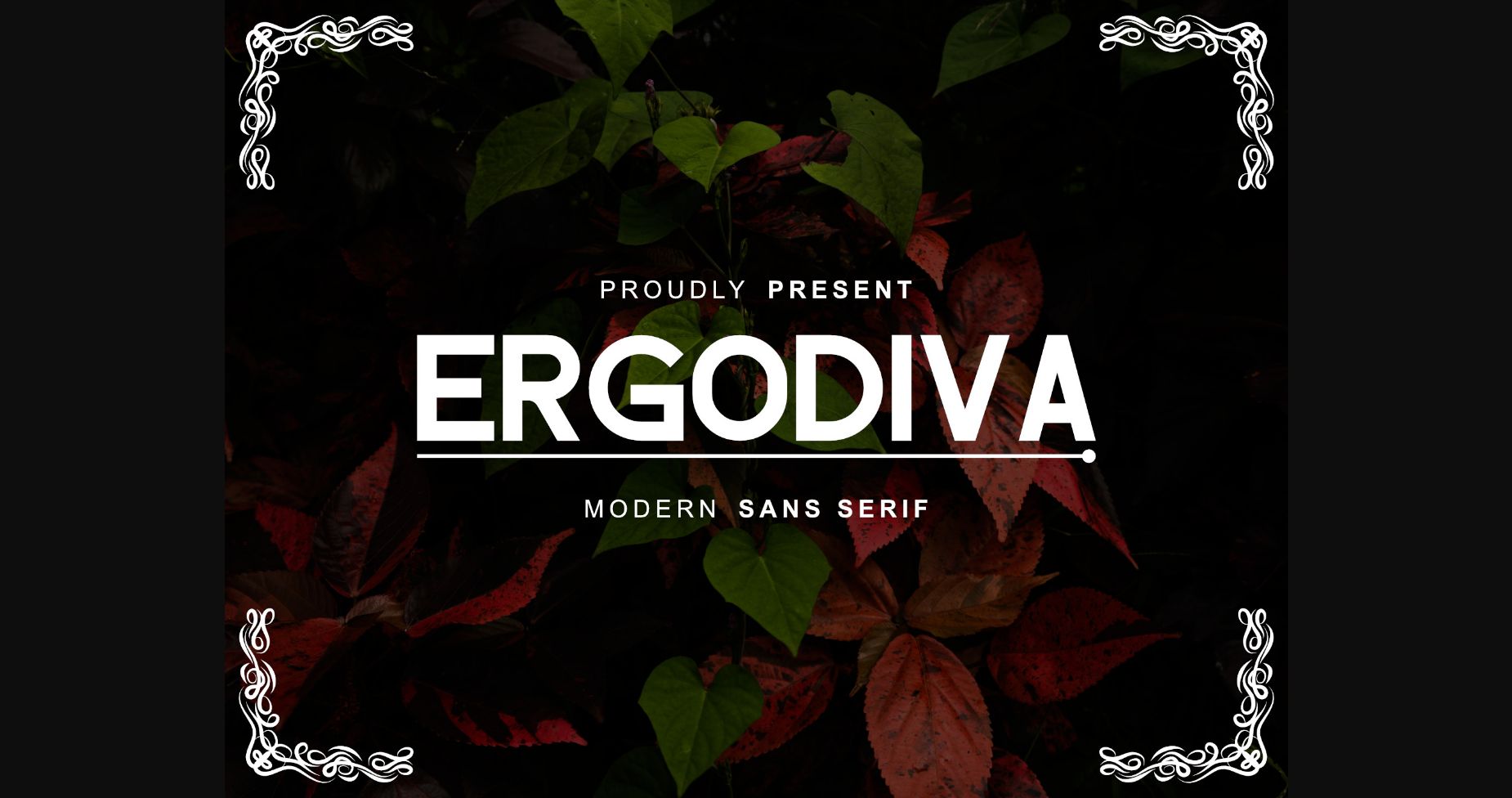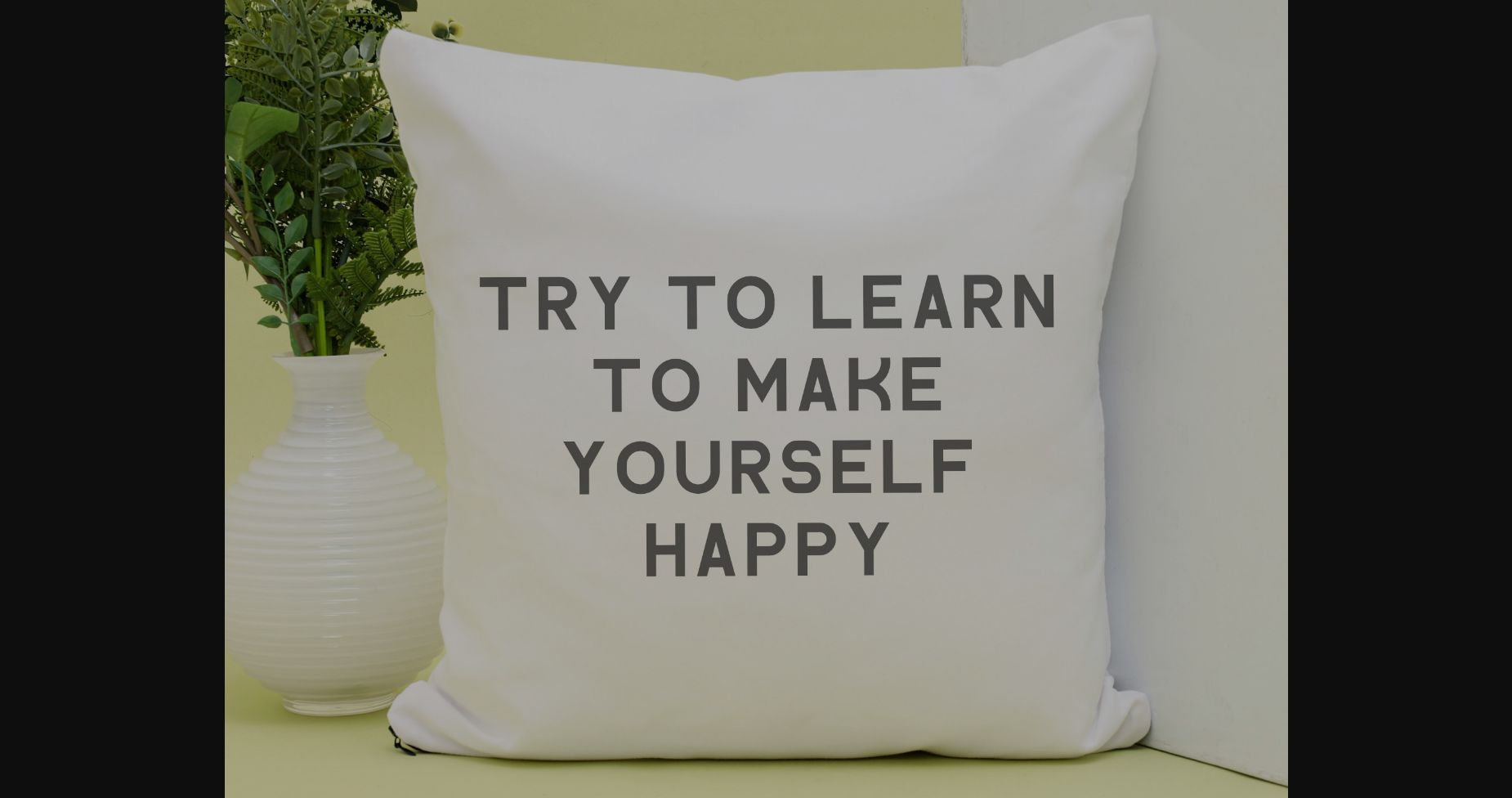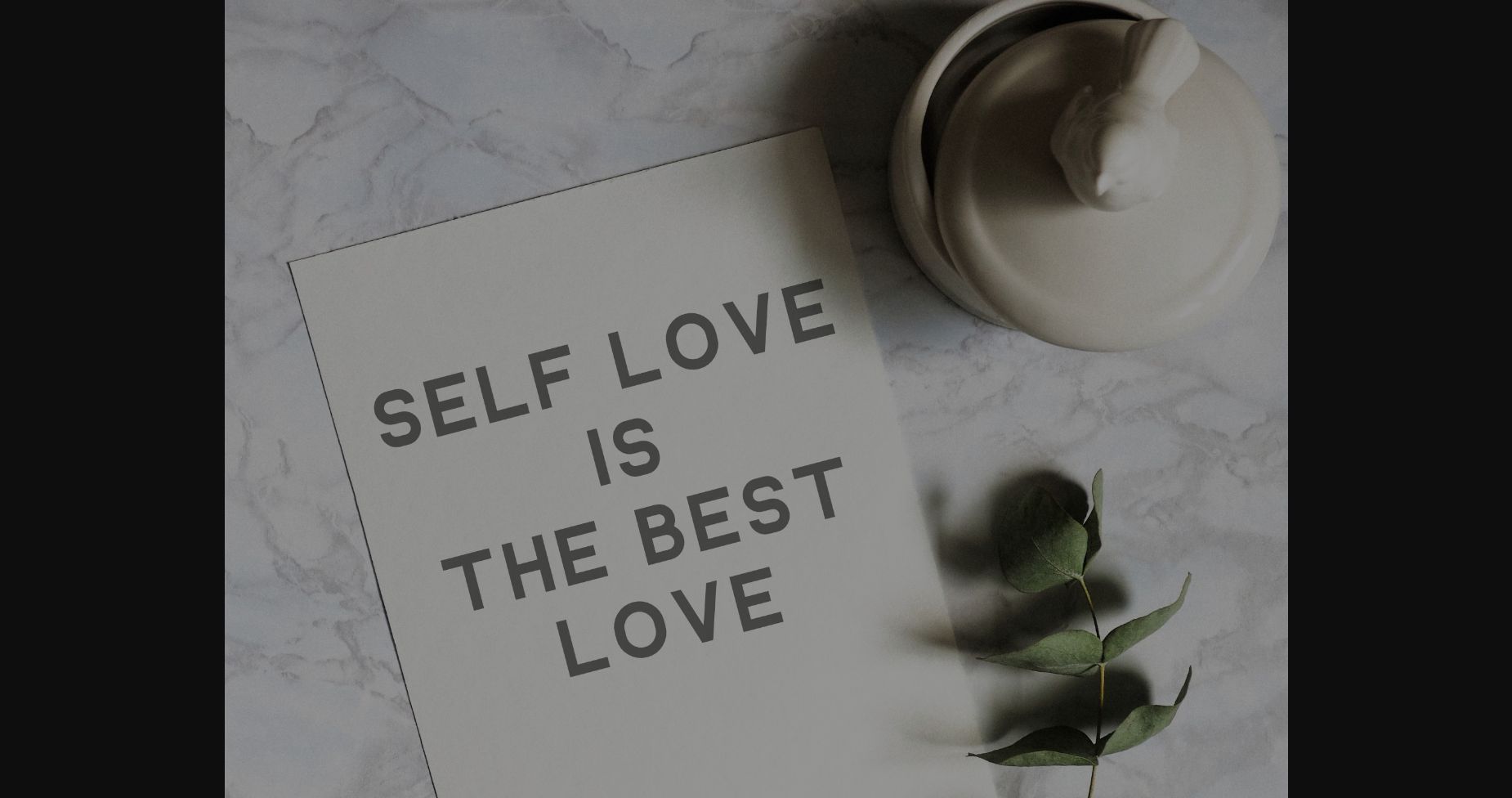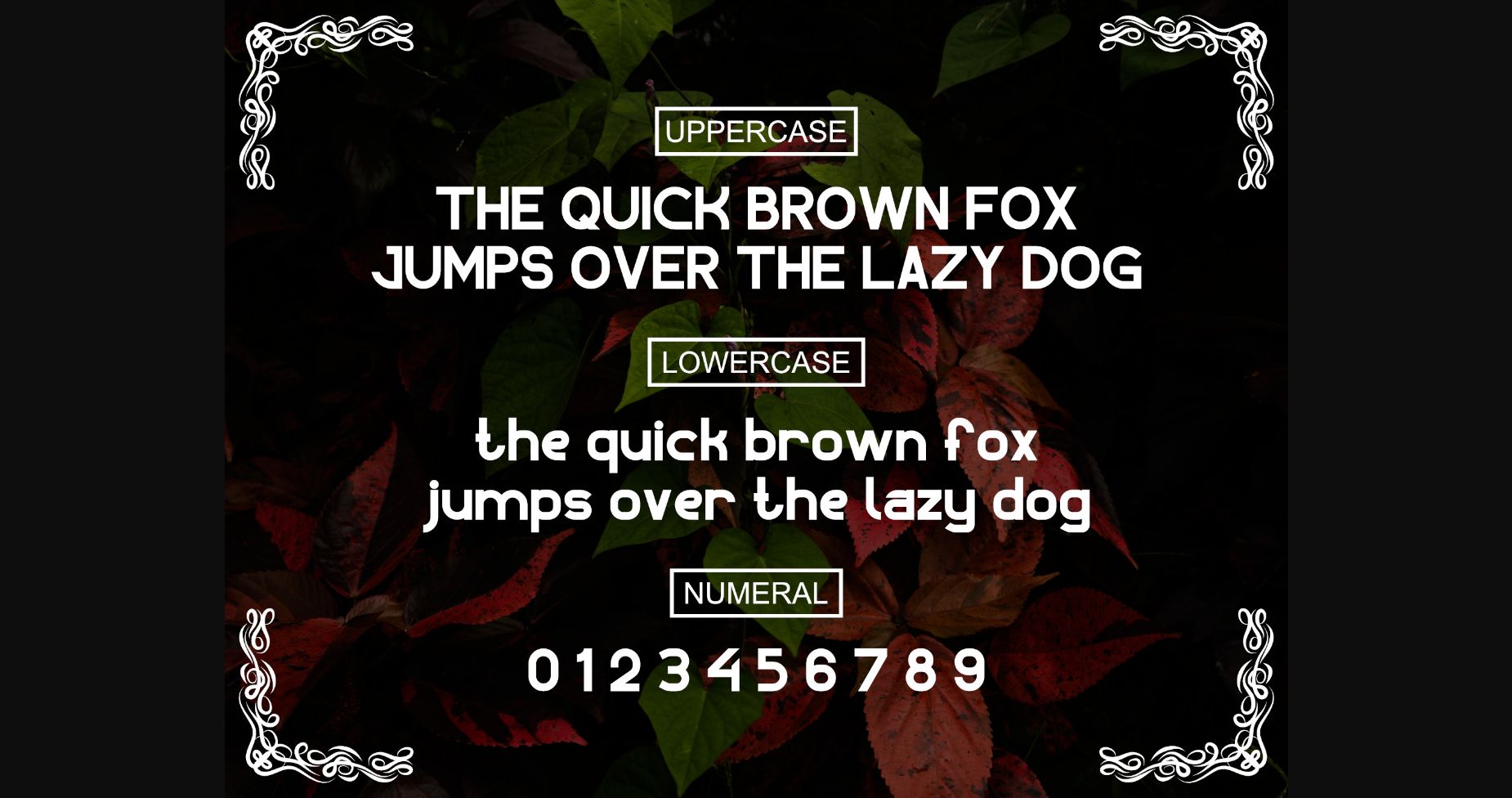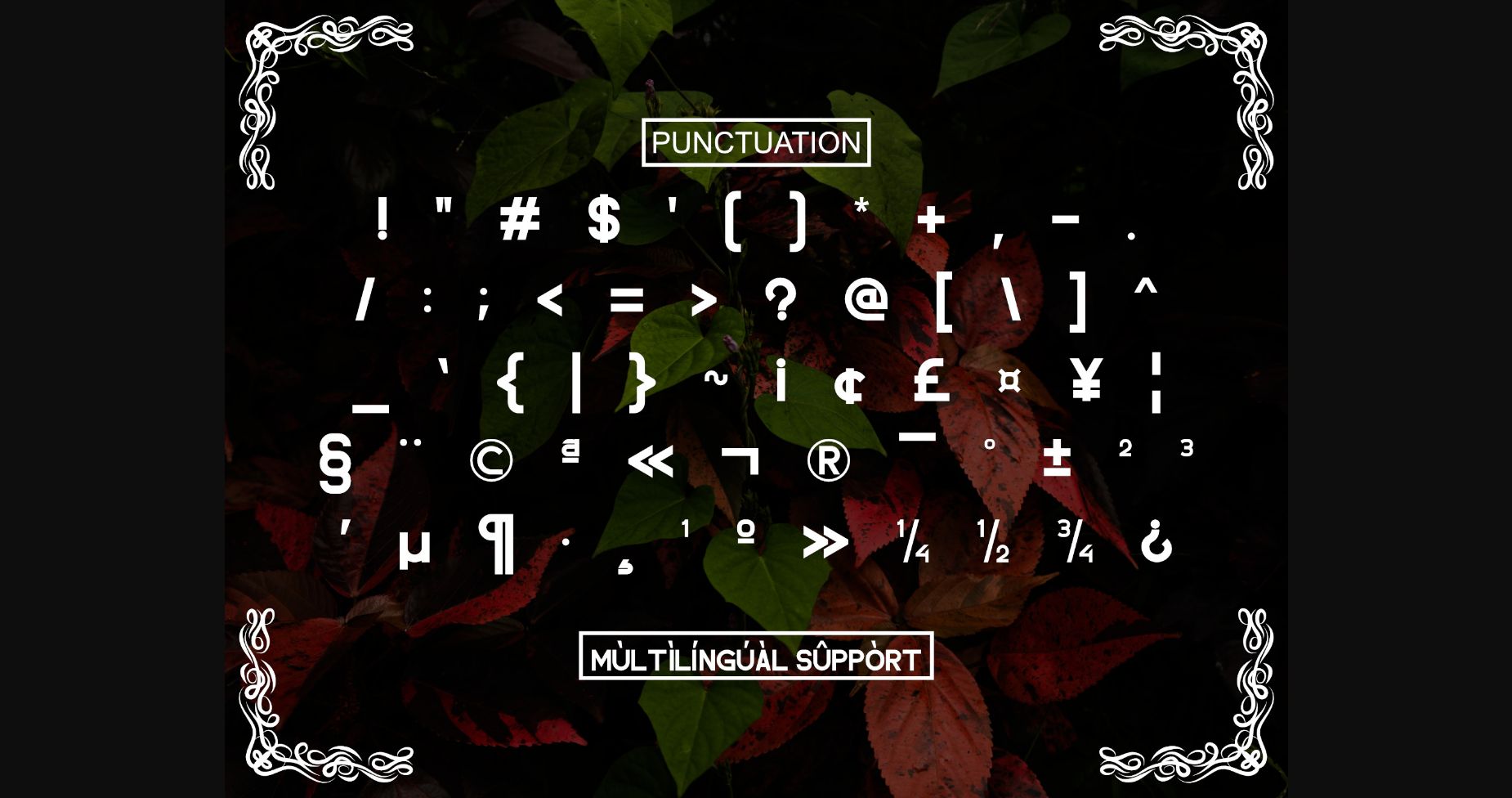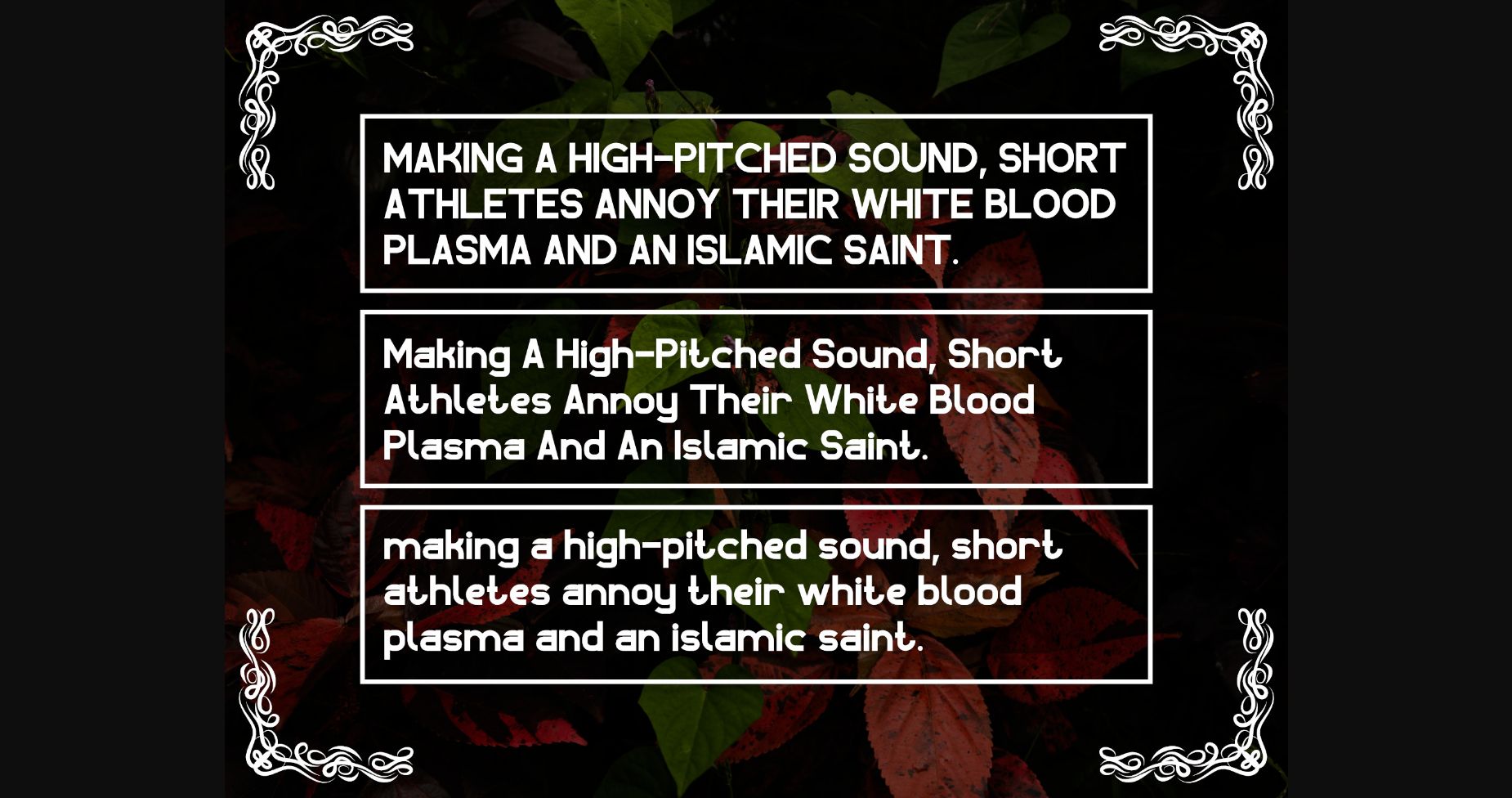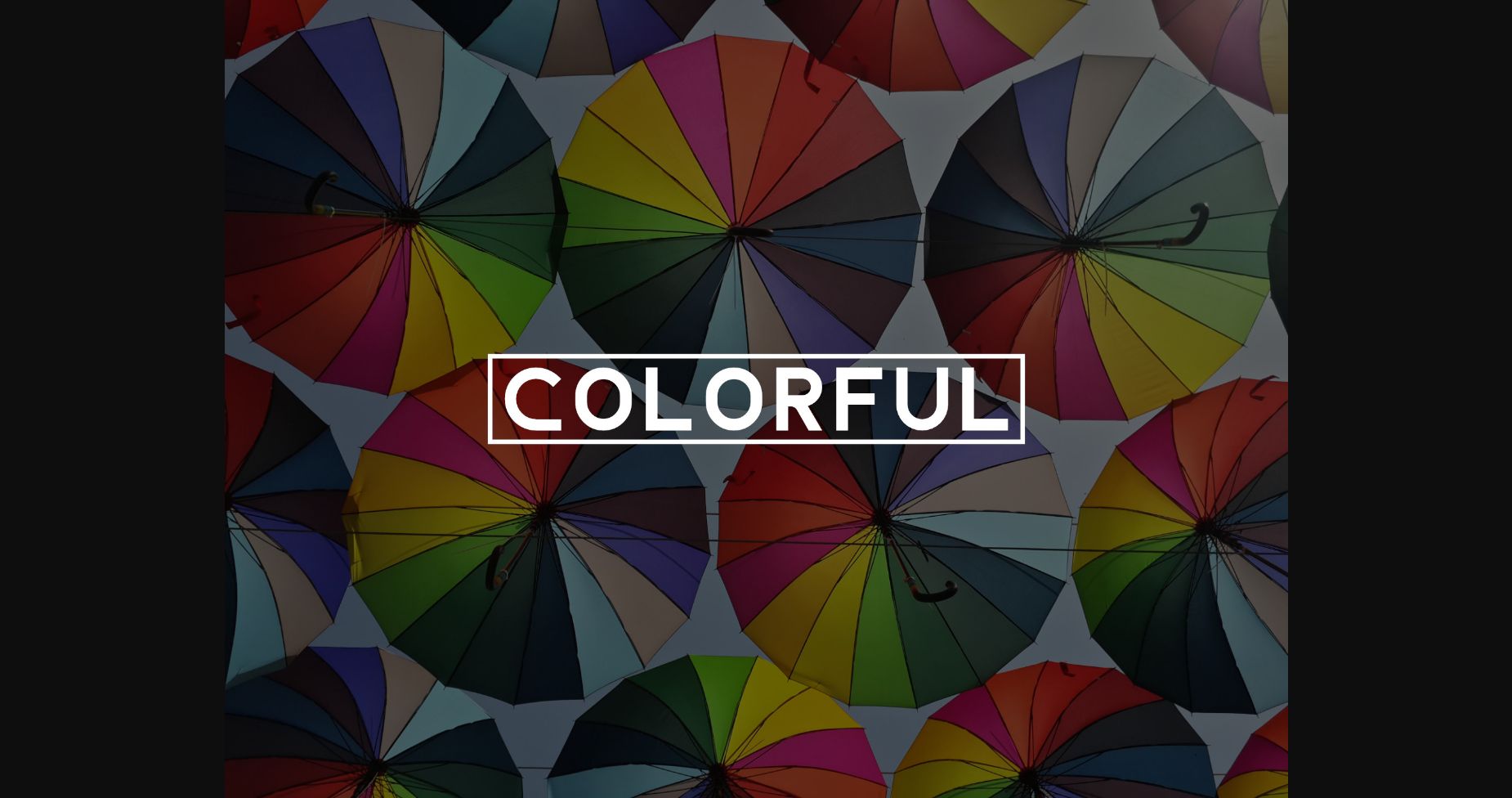
About Ergodiva Font
Ergodiva is a timeless sans serif font. With smooth, clean lines and just a touch of contrast, Ergodiva works beautifully for logos, branding, and web headings.
Add this font to your most creative ideas, and notice how it makes them stand out!